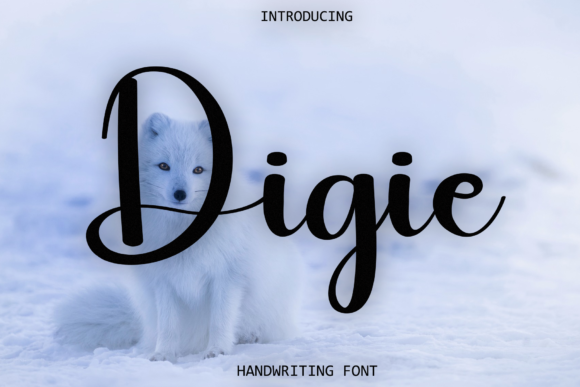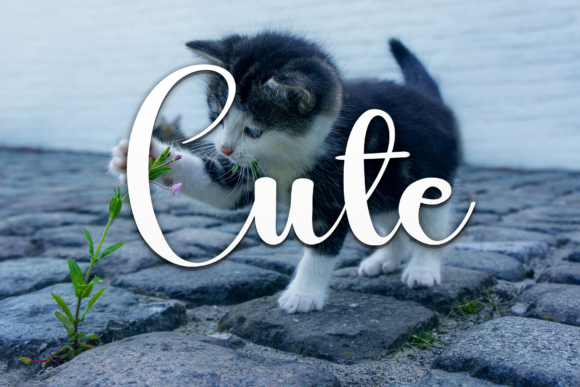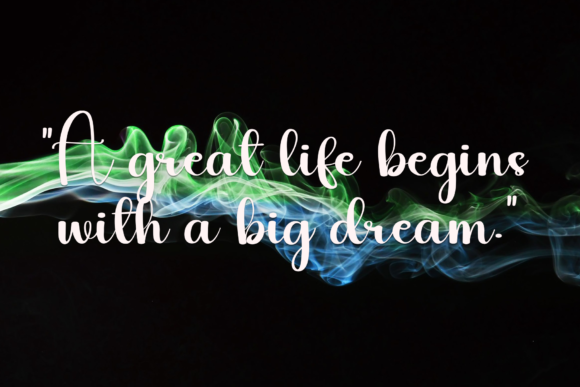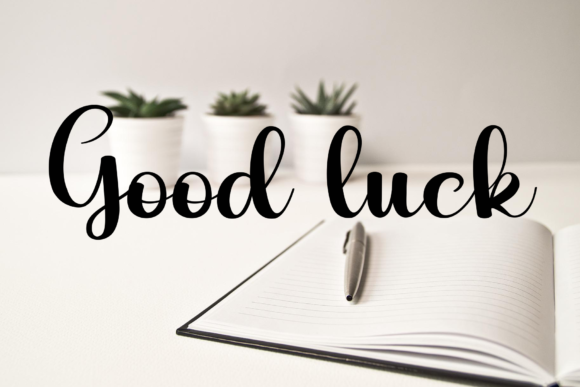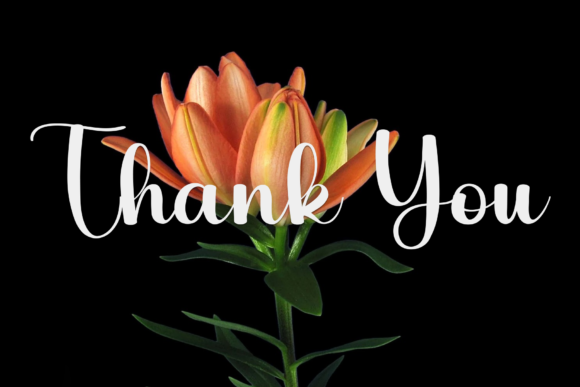
Digie Font
About Digie Font
“Digie” is a sweet, whimsical script font characterized by its flowing and thin design. With characters that dance along the baseline, this font brings a delightful and playful quality to your design projects. Crafted to add a touch of luxury, “Digie” is perfect for a wide range of creative endeavors, whether you’re working on invitations, branding materials, or any project that could benefit from a charming and sophisticated aesthetic.
The whimsical and flowing nature of “Digie” is evident in its thin script style. The characters move gracefully along the baseline, creating a sense of playfulness and movement. This makes the font an excellent choice for projects where a touch of whimsy and elegance is desired.
Incorporating “Digie” into your design projects will add a luxurious spark. The thin script and dancing characters contribute to an overall aesthetic that feels refined and sophisticated, making it particularly fitting for projects that demand a touch of elegance and exclusivity.
Whether used for invitations, branding, or any design endeavor, “Digie” is a font that brings a delightful and luxurious quality to your work. Its thin script and playful characters create a visual harmony that elevates the overall aesthetic, making it a standout choice for those seeking a blend of sophistication and whimsy.
In summary, “Digie” is a sweet and whimsical script font designed to add a luxury spark to your design projects. Its flowing and thin script, combined with dancing characters, creates an elegant yet playful vibe. Let “Digie” be the font that infuses your creations with a touch of charm and luxury, turning your designs into enchanting works of art.